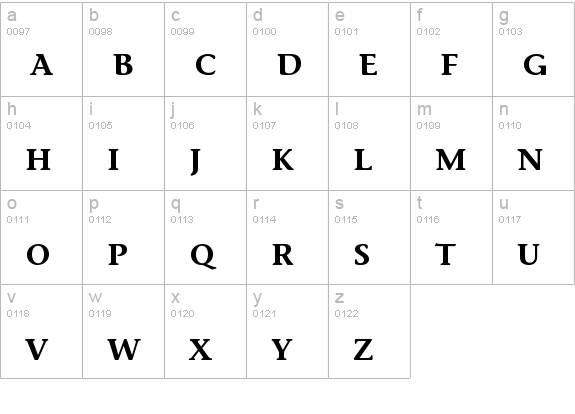
StoneInforSCEF-SemiBold is a sub-bold, structured variant in the StoneInforSCEF typeface family \xE2\x80\x94 well suited to sub-headlines and emphasised passages.
StoneInforSCEF-SemiBold is a modern and stylish typeface that exudes elegance and sophistication. Its sleek and bold design makes it perfect for a wide range of design projects, from branding to editorial layouts. The semi-bold weight gives it a strong presence while maintaining a sense of approachability. This font is ideal for creating eye-catching headlines, titles, and logos that demand attention. Its clean lines and sharp edges make it highly legible at any size, ensuring that your message will always be clear and impactful. Best of all, StoneInforSCEF-SemiBold is available for free download at FontsMarket.com. This means you can easily add this versatile font to your collection without breaking the bank. Don't miss out on the opportunity to enhance your designs with the timeless elegance of StoneInforSCEF-SemiBold. Download it today and start creating stunning visuals that stand out from the crowd.